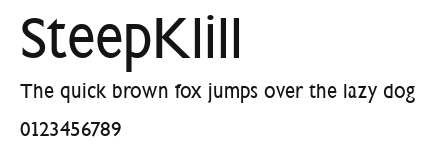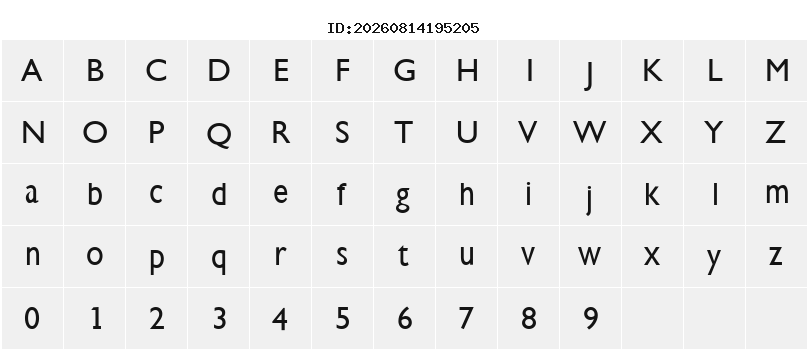
• Font Name: SteepKlill
• Font ID: SteepKlill
• Full Font Name: SteepKlill
• Version: 1.1 30-03-2002
• PostScript Name: SteepKlill
About SteepKlill.ttf
SteepKlill.ttf is a modern, elegant sans-serif font designed for ultimate readability and visual harmony. Perfect for branding, headlines, web design, and print materials.